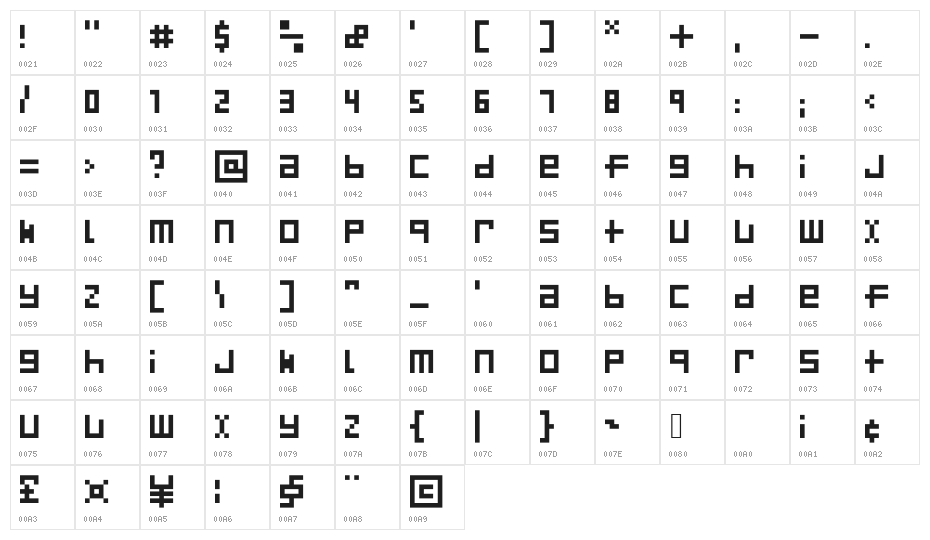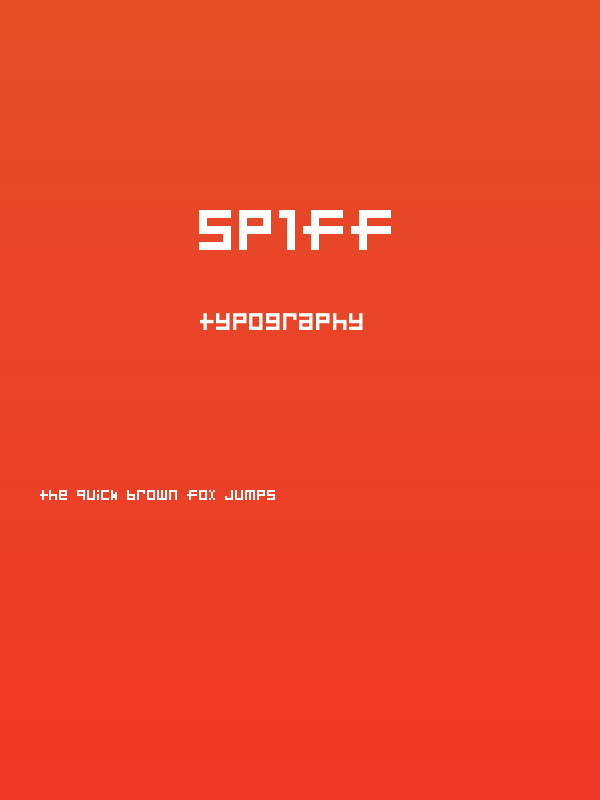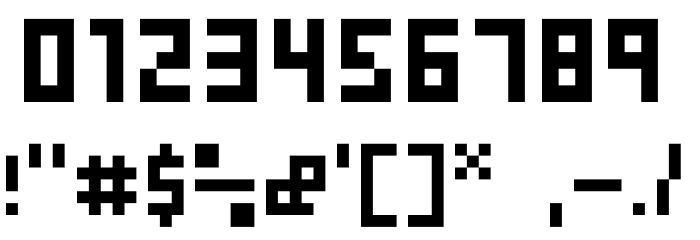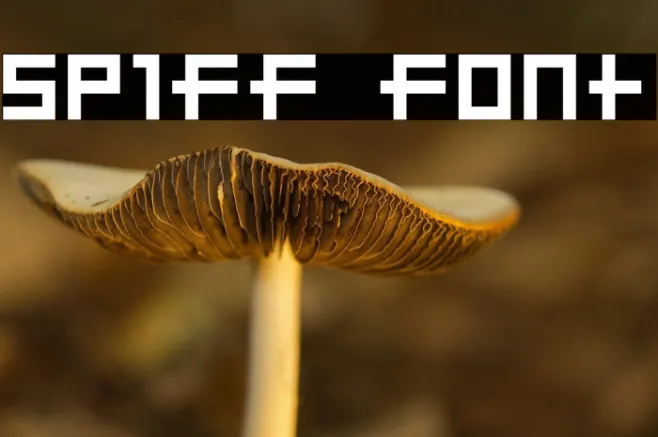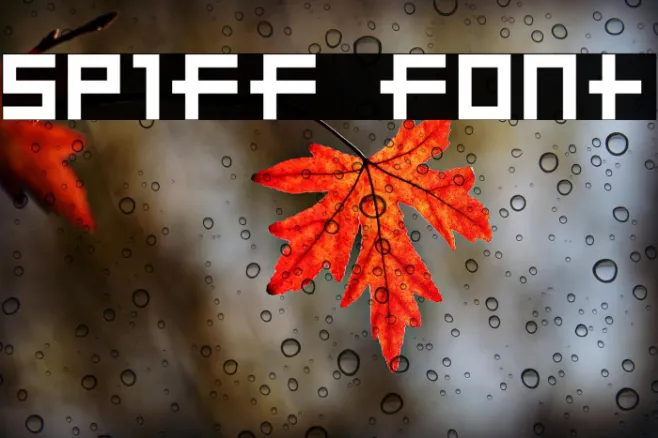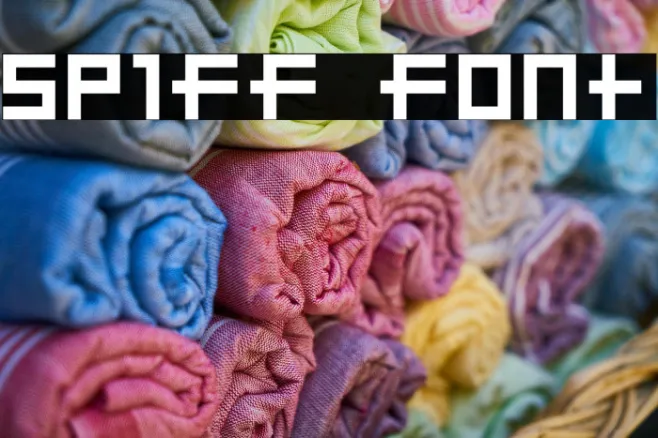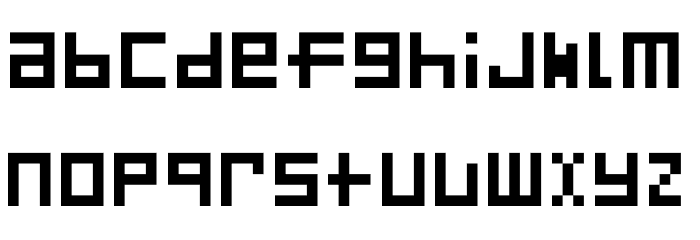
SP1ff Font
SP1ff Description
This font exhibits a bold, geometric style with a strong emphasis on straight lines and right angles, creating a distinctly modern and digital appearance. The characters are uniformly constructed with a blocky, pixelated aesthetic reminiscent of early computer graphics or digital displays. The uppercase and lowercase letters maintain a consistent height, contributing to a monospaced feel, although the font is not strictly monospaced. The numerals and special characters follow the same design principles, ensuring a cohesive look across all glyphs. The overall style is minimalistic yet impactful, making it suitable for projects that require a futuristic or tech-oriented vibe.
| Use Case | Logos, Headlines, Digital interfaces |
| Proposed Projects | Ideal for tech-related branding, digital art, video game design, and futuristic posters. |